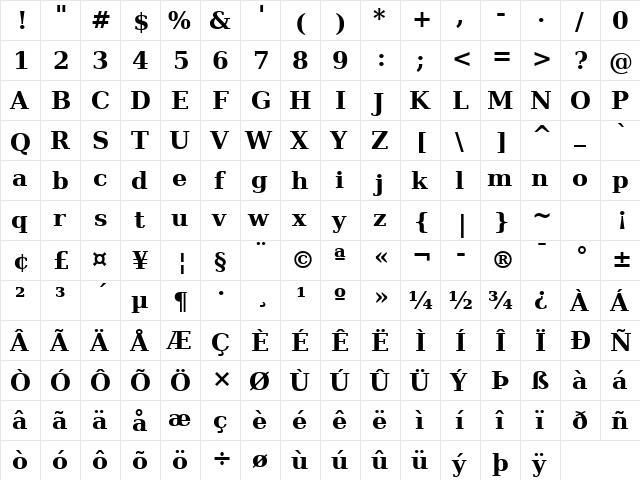
ae_Mashq Bold
| Foundry | MAK Alagha |
| Designer | Regenerated by Nadim Shaikli |
Design Context for ae_Mashq Typeface
ae_Mashq is a composed and adaptable typeface that performs quietly and consistently across a wide range of design contexts. The heavy weight commands attention and anchors typographic hierarchies.